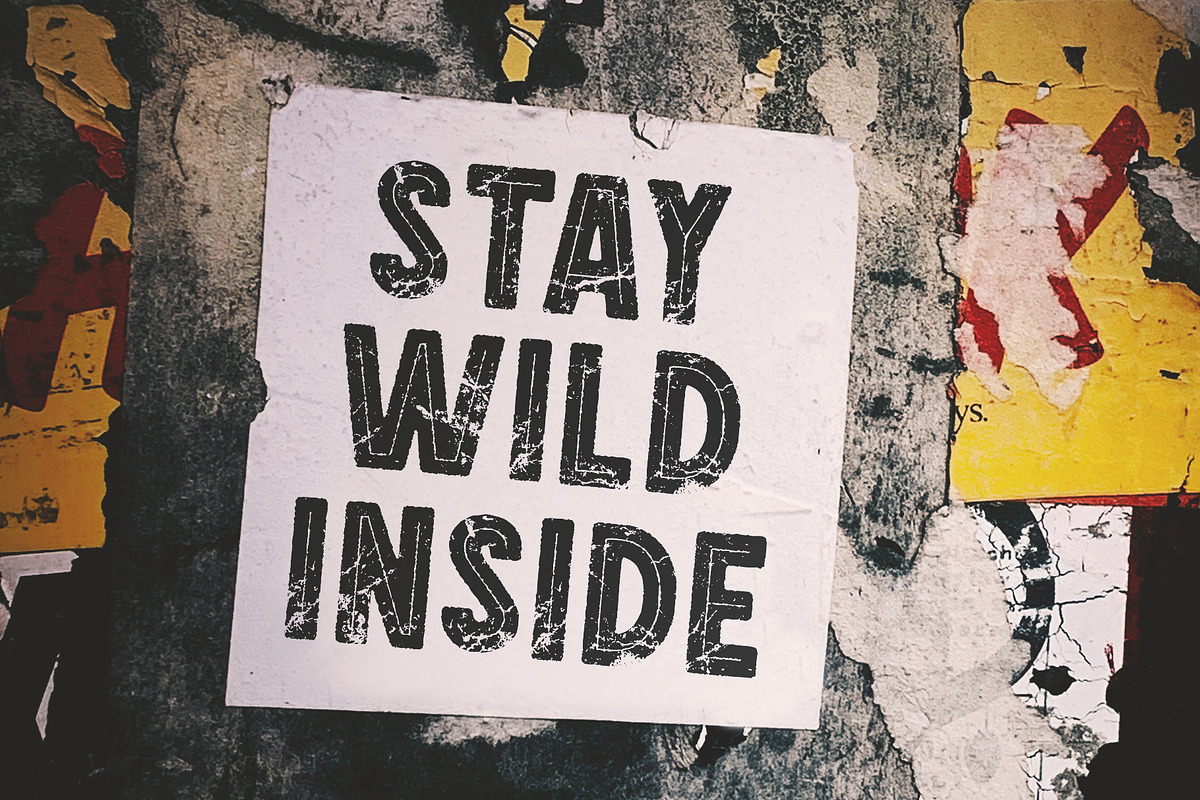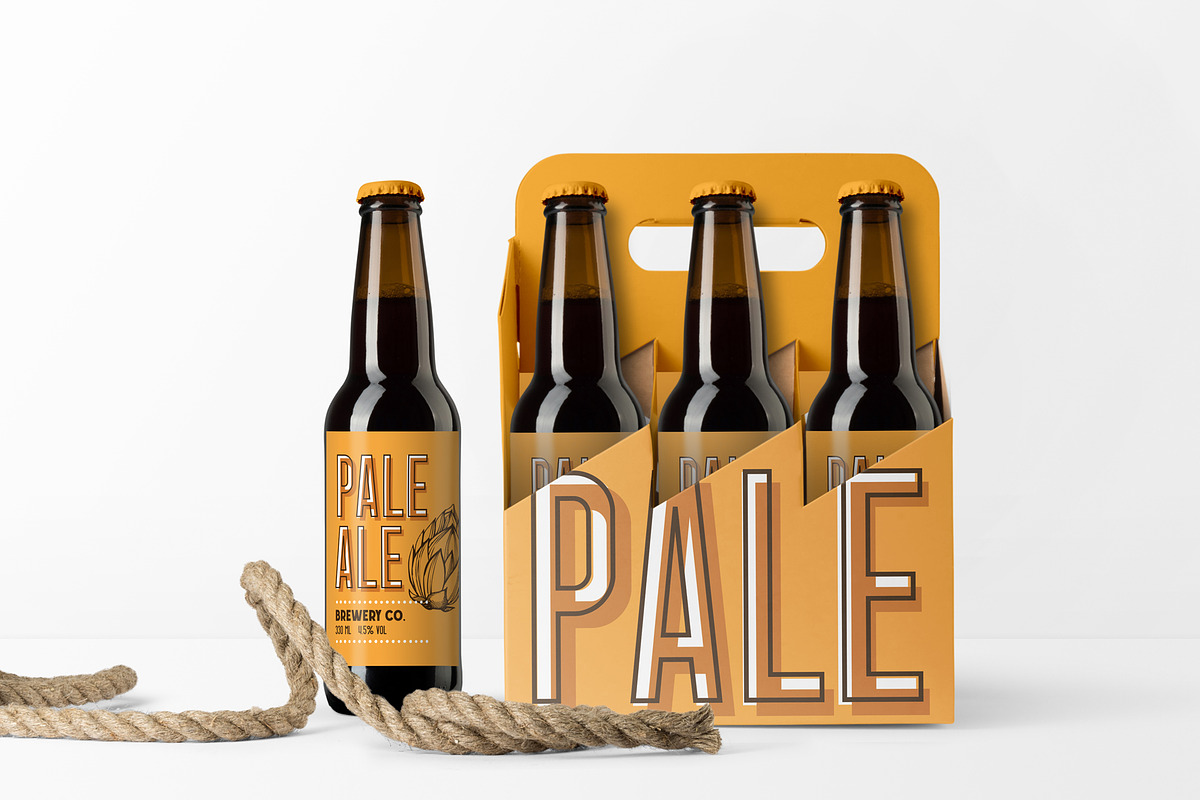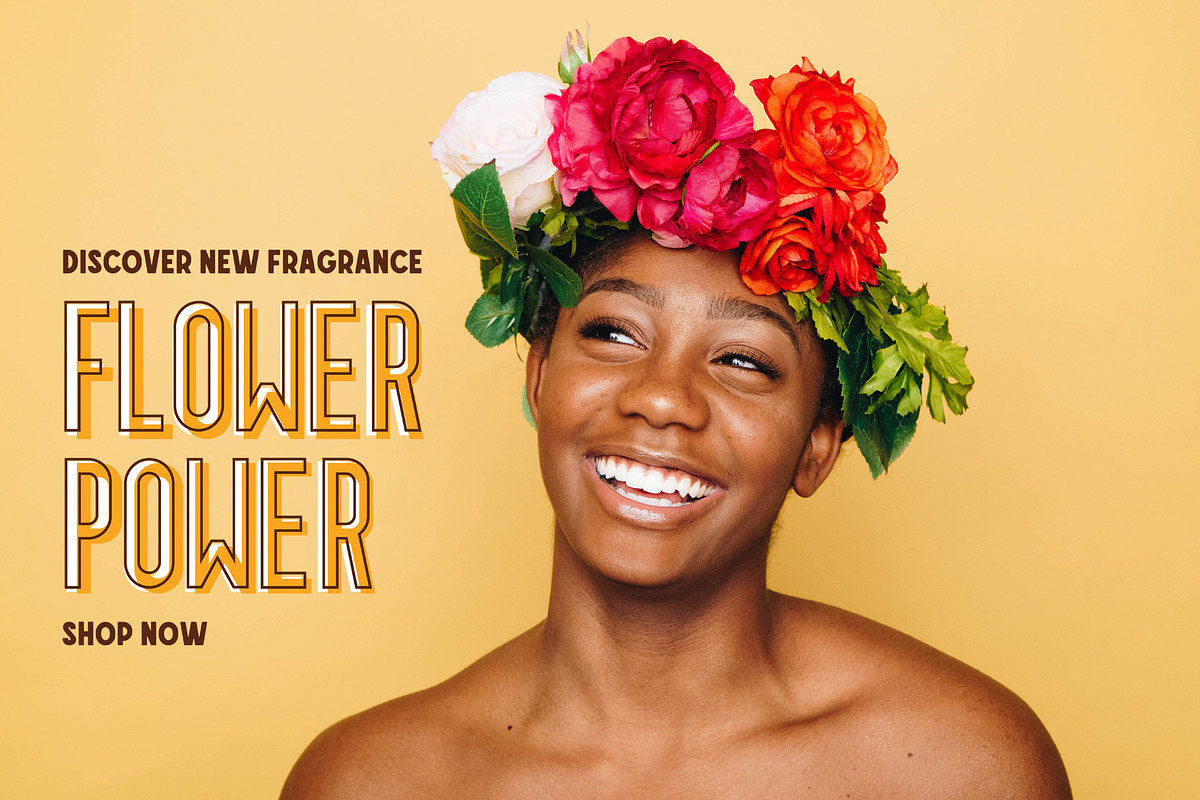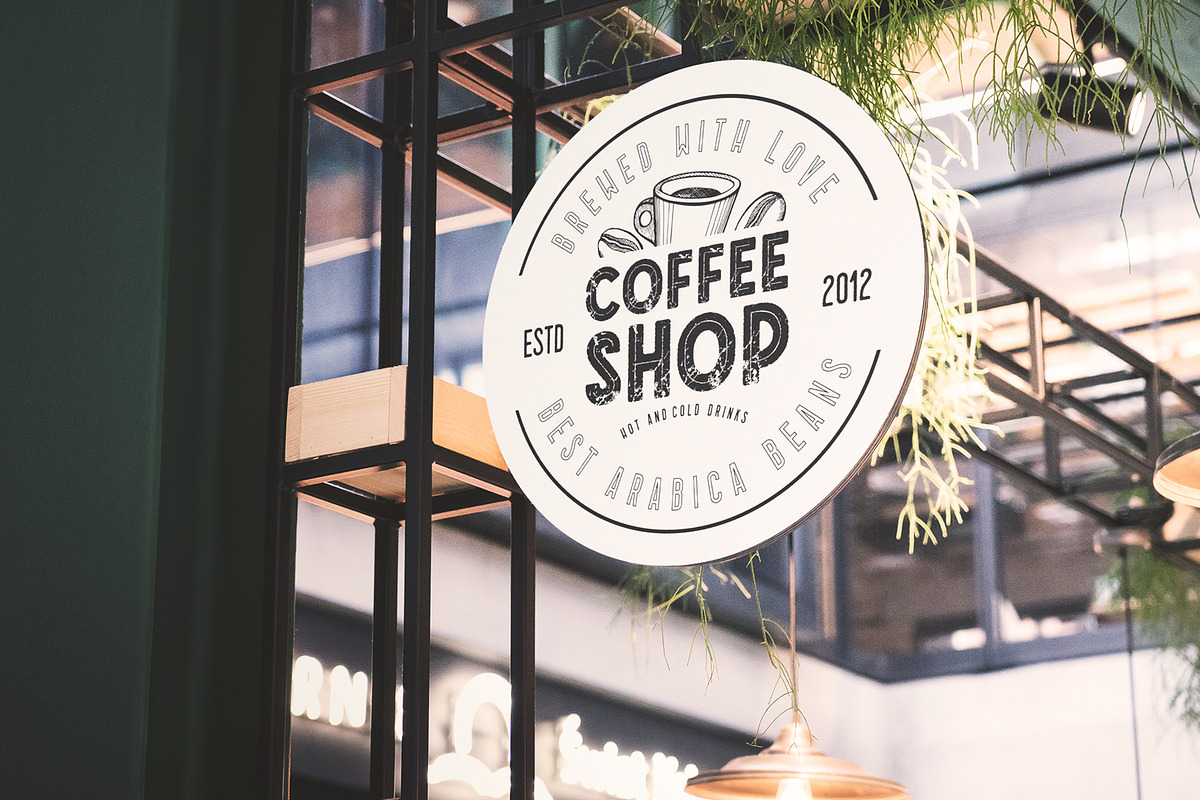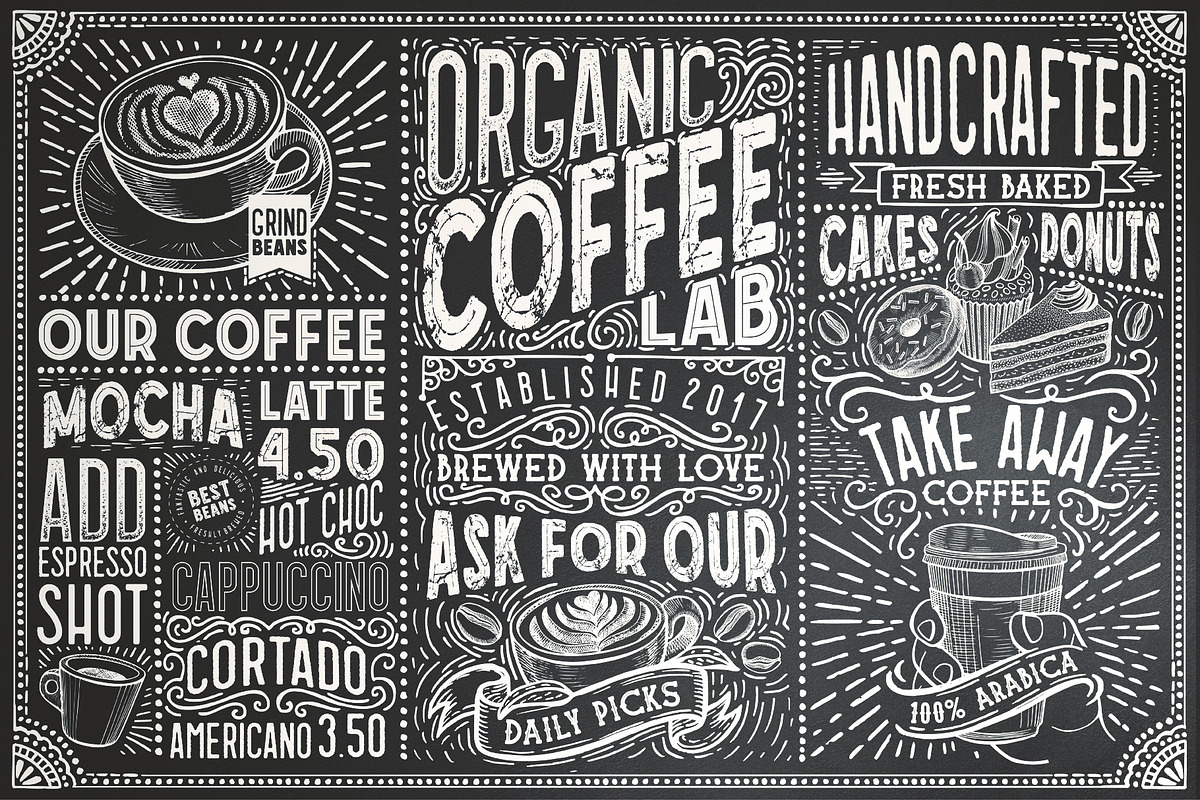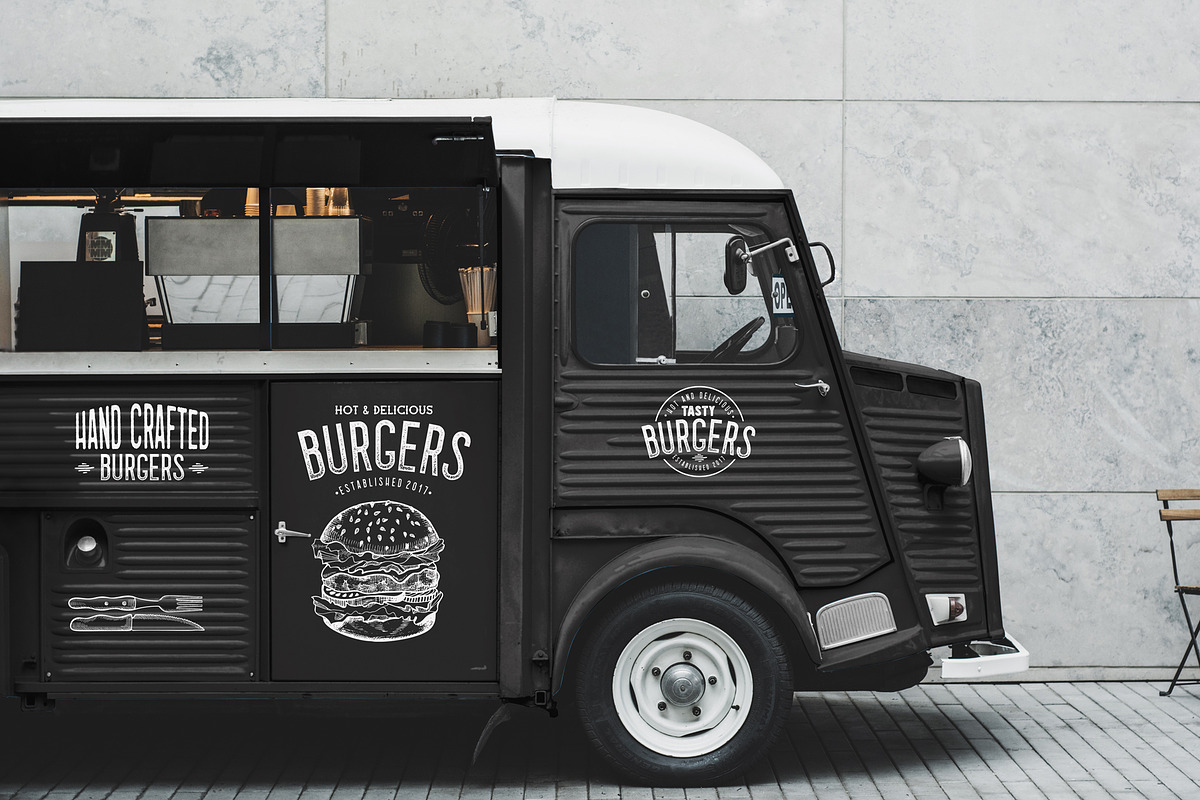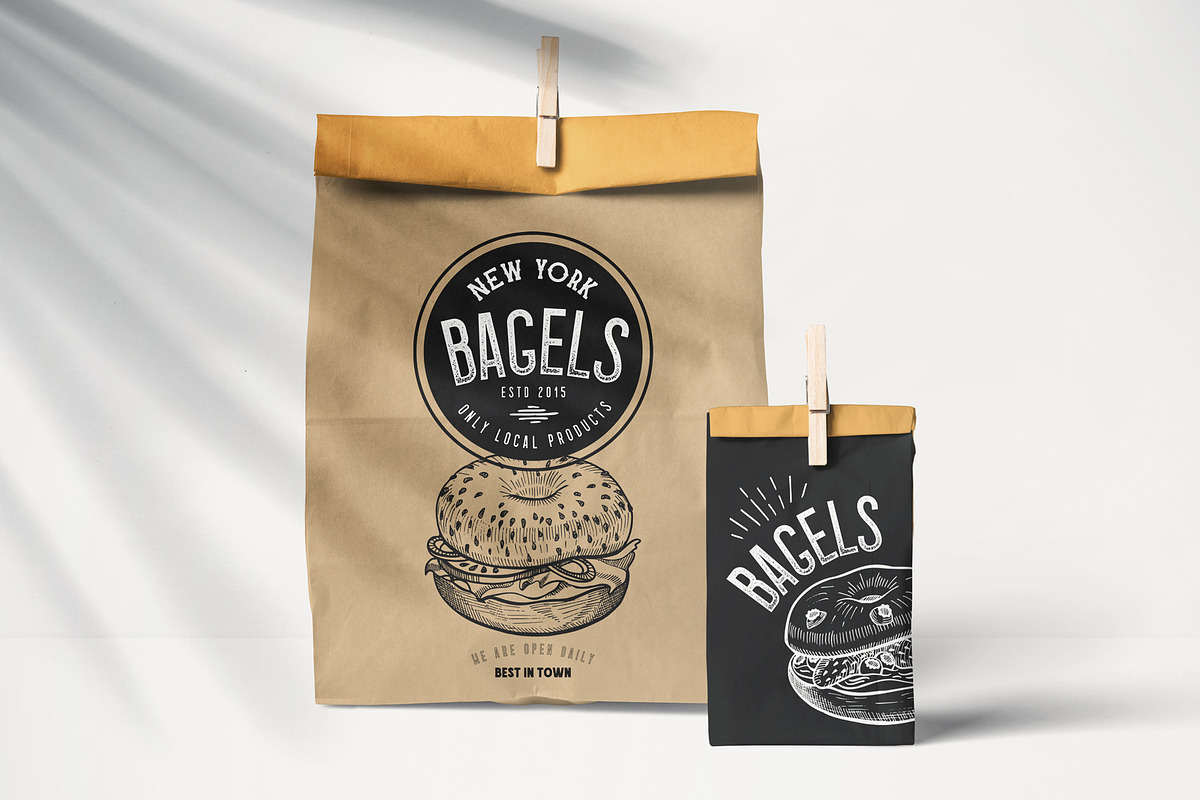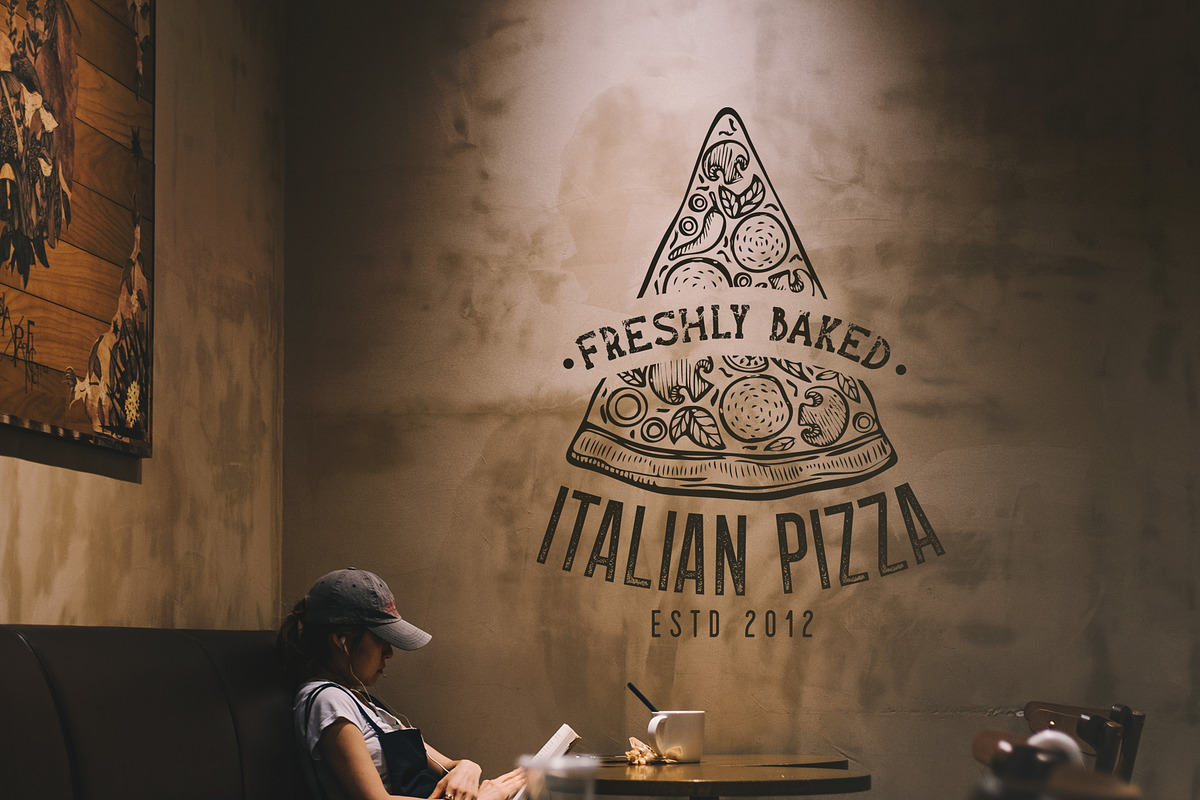
15 Fonts Coffee Lab Collection
Coffee Lab Font Collection - 15 Styles
Coffee Lab - a font collection of vintage, rough, rounded, outline, inline styles. Includes uppercase letters, punctuation, numbers, special characters, multilingual support.
- Includes uppercase letters, punctuation, numbers, special characters, multilingual support.